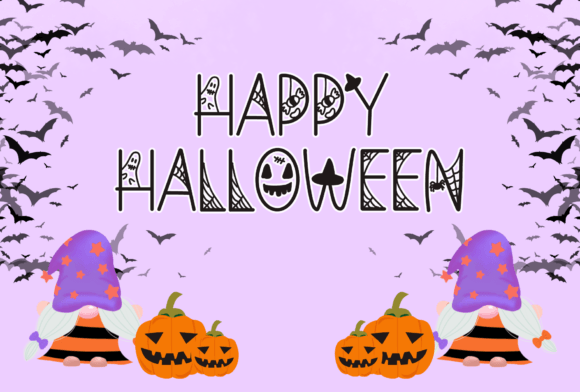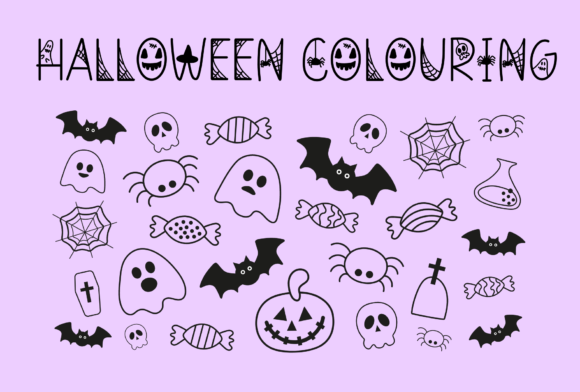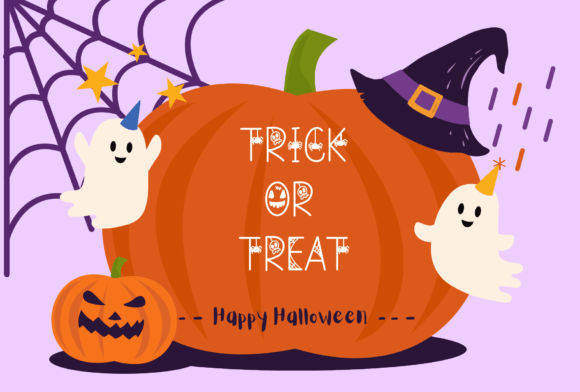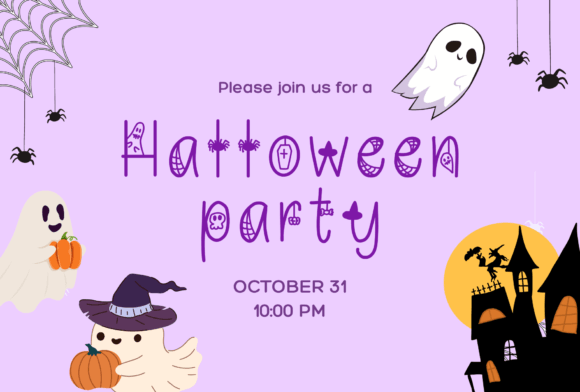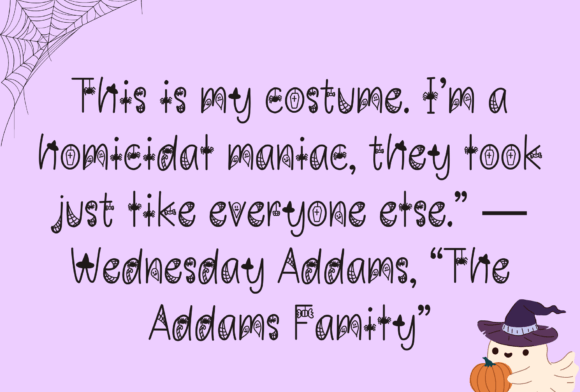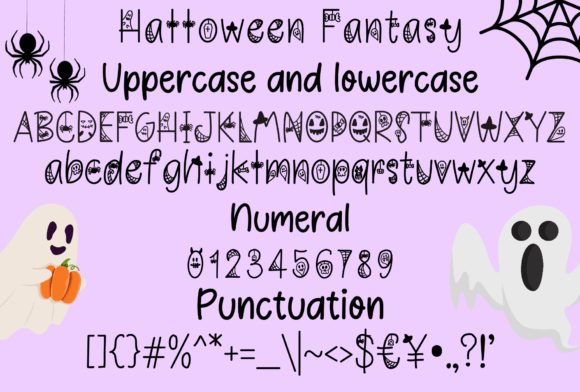
The Spooky Season is Just Around the Corner…
As the crisp autumn air sets in and the nights grow darker, our minds start to wander to the one holiday that truly captures the essence of spooky creativity: Halloween. It’s that magical time of year when we let our imaginations run wild and our artistic spirits soar. And what better way to tap into that creative energy than with the perfect font to match the mood?
Enter the enchanting Halloween Fantasy Font – a unique and captivating decorative font designed to transport your designs to a world of eerie elegance. Whether you’re crafting a special Halloween card, designing a t-shirt, or even decorating a mug, this font is the perfect companion to bring your spooky visions to life. As a designer, you’ll appreciate the versatility and creativity that Halloween Fantasy Font brings to your projects, making it a valuable addition to your design arsenal.
Halloween Fantasy Font Key Features
- Font Family: A unique, fantasy-inspired font designed specifically for Halloween-themed projects.
- Character Count: Includes a wide range of characters, including uppercase and lowercase letters, numbers, punctuation, and special symbols.
- Unique Characteristics: Features intricate, hand-drawn designs, and subtle texture effects to create a spooky, mystical atmosphere.
Halloween Fantasy Font Review
At first glance, the Halloween Fantasy Font caught my eye with its ✨ whimsical and playful design. The font is perfect for adding a spooky touch to any Halloween-themed project. The designer has done a great job of incorporating elements like bats, spiders, and jack-o-lanterns into the font, making it feel like a true celebration of the holiday.
The font is highly customizable, allowing users to adjust the size, color, and spacing to fit their needs. The designer has also included a range of styles, from bold and dramatic to light and playful, which adds to the font’s versatility.
Here are some key features that work well:
- ✨ Whimsical and playful design perfect for Halloween-themed projects
- ✨ Highly customizable with adjustable size, color, and spacing
- ✨ Range of styles to suit different design needs
- ⚠️ Limited character set, which may not be suitable for longer text
- ⚠️ Some characters may not display correctly in certain fonts or browsers
Overall, I would say that the Halloween Fantasy Font is a great addition to any designer’s toolkit. While it may have some limitations, its unique design and versatility make it a great choice for adding a touch of Halloween magic to any project.
For the most dramatic effect, use the Halloween Fantasy Font in bold, italics, or all caps.
Common use cases include creating spooky invitations, designing haunted house decorations, or adding a touch of whimsy to a Halloween-themed party flyer.